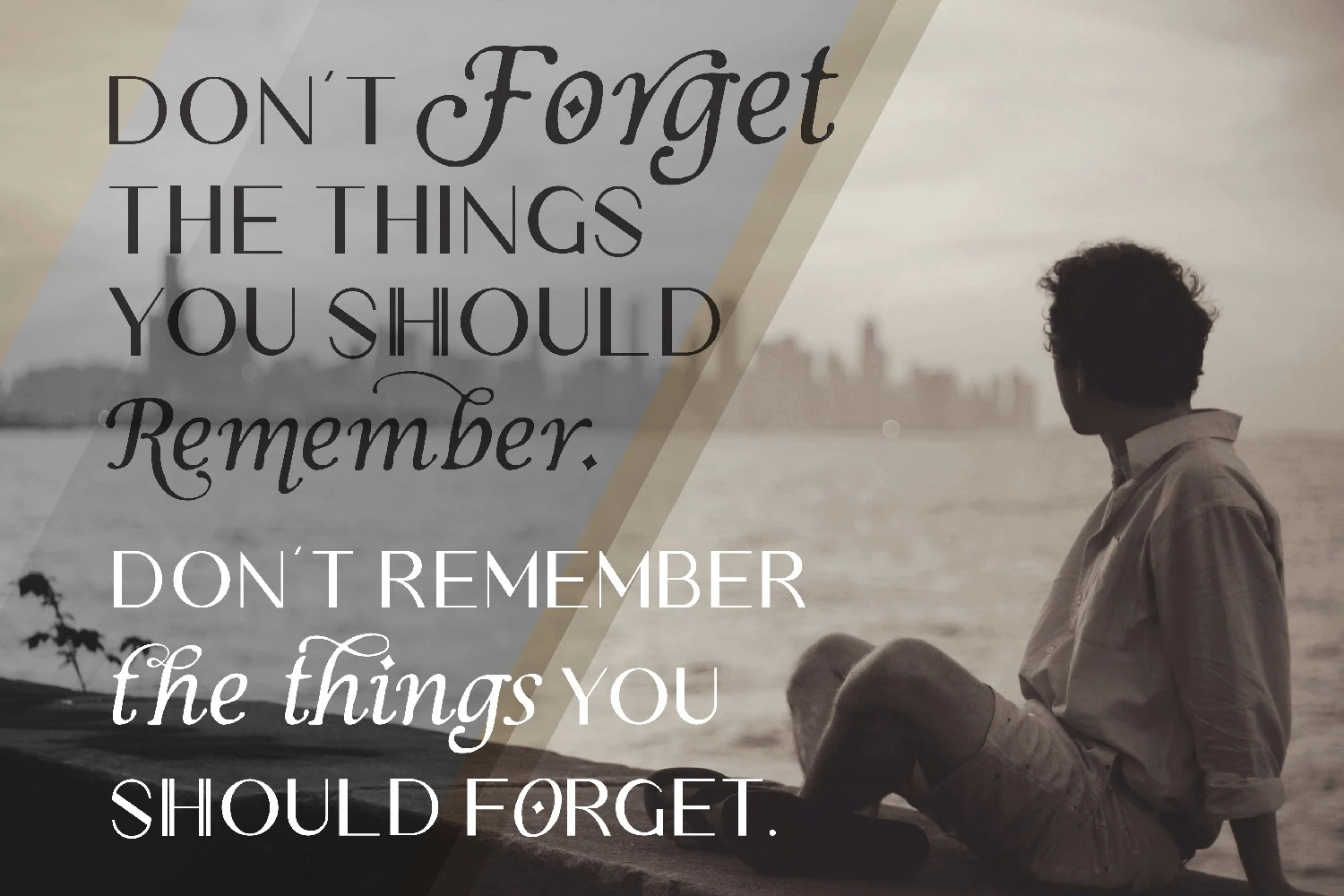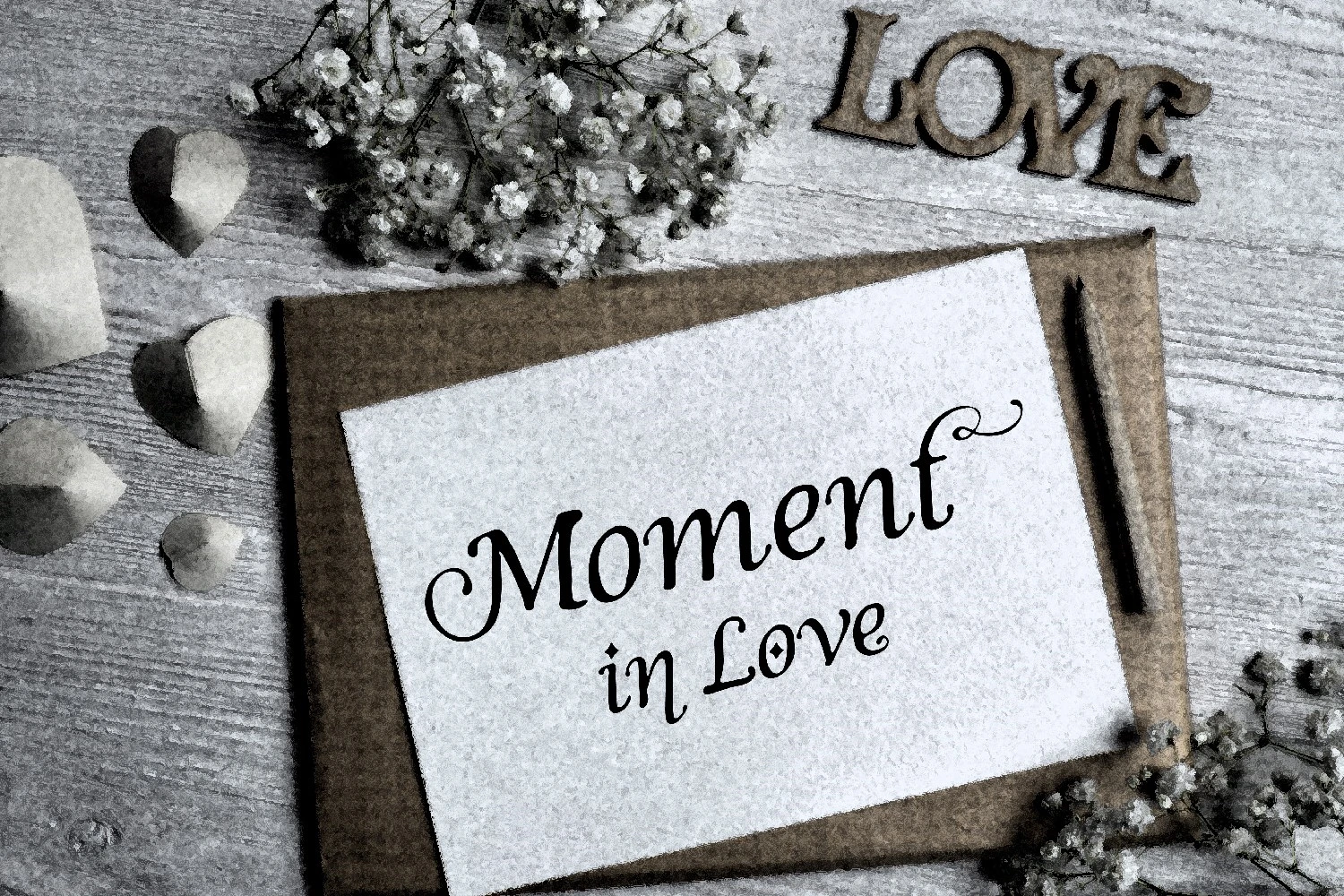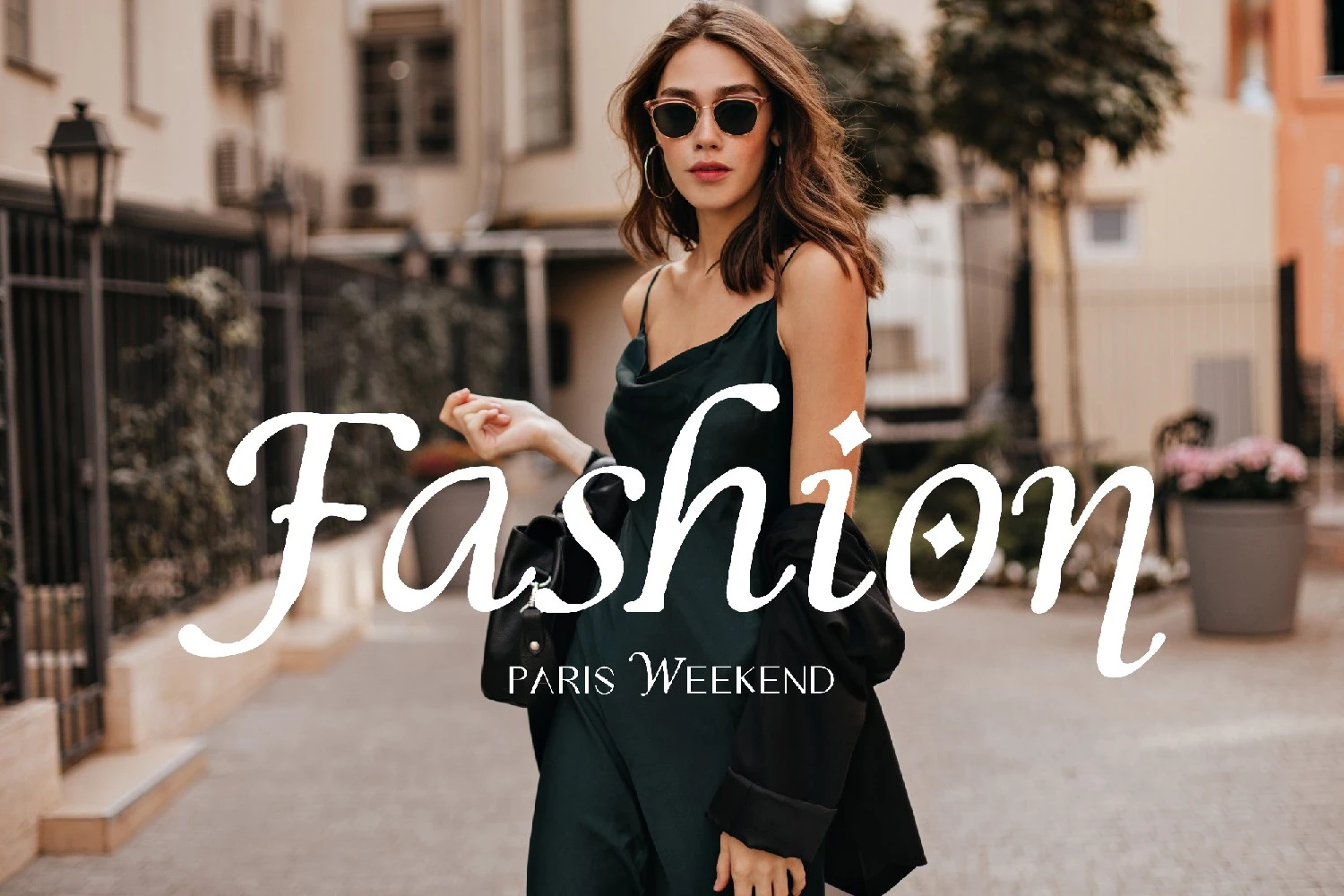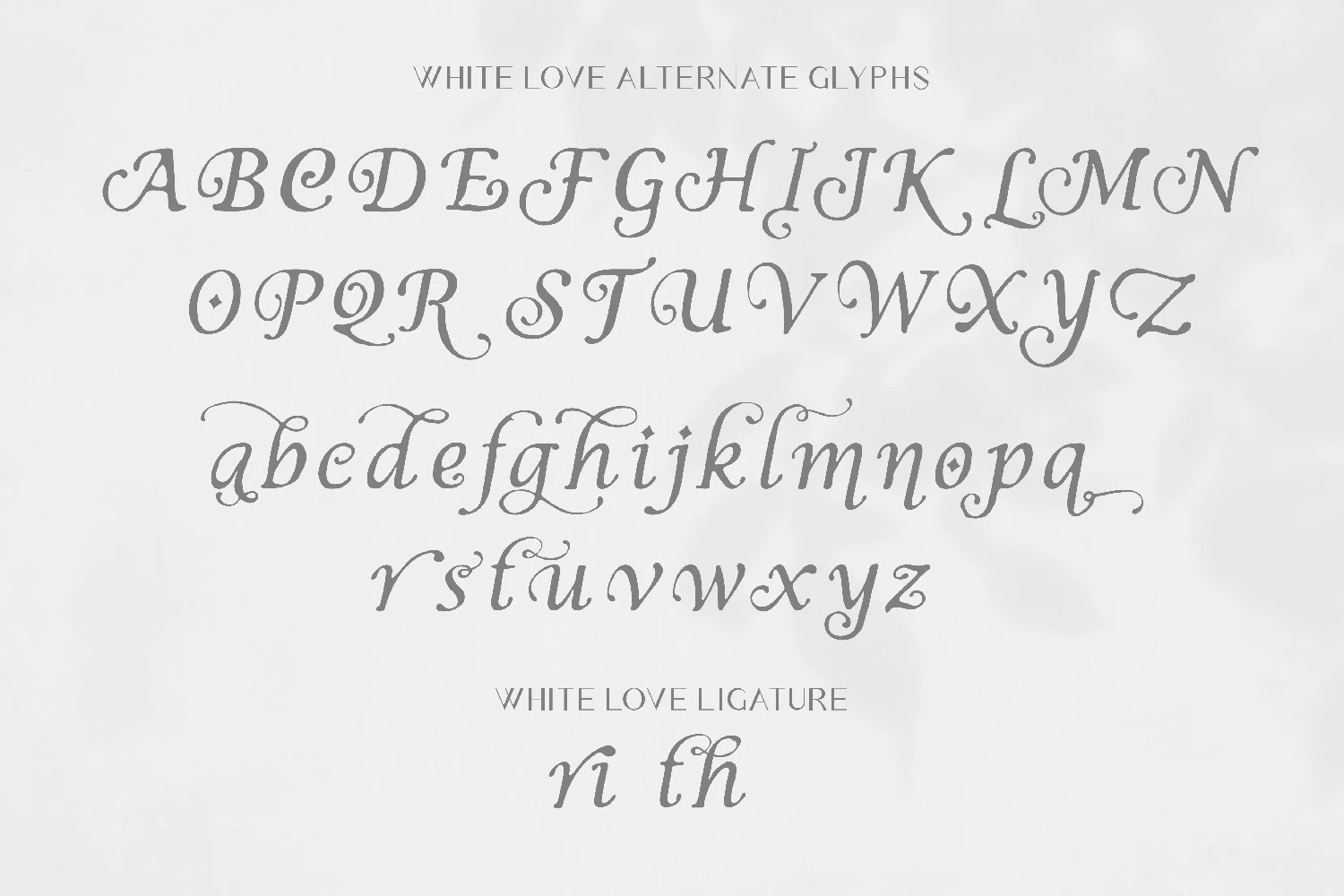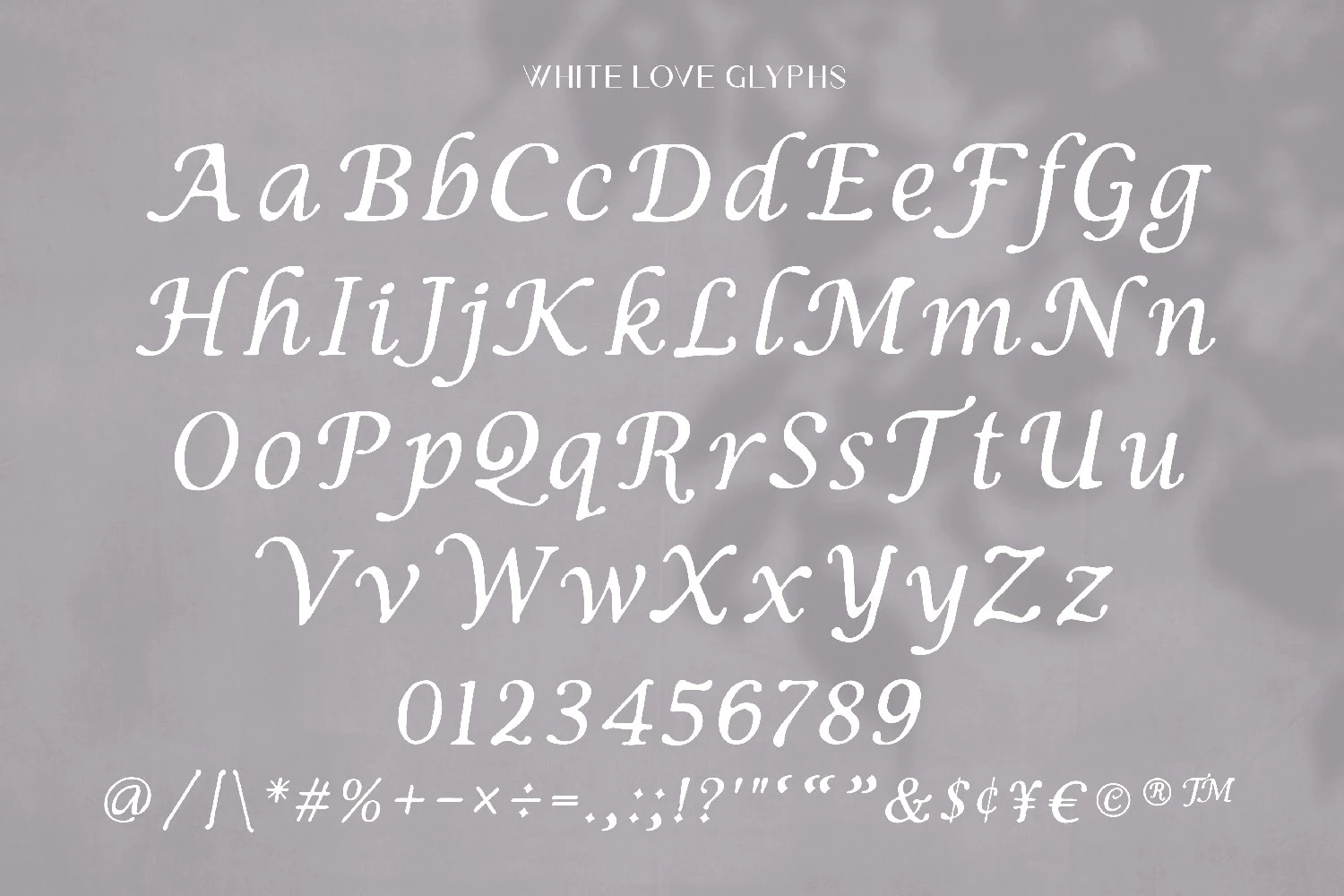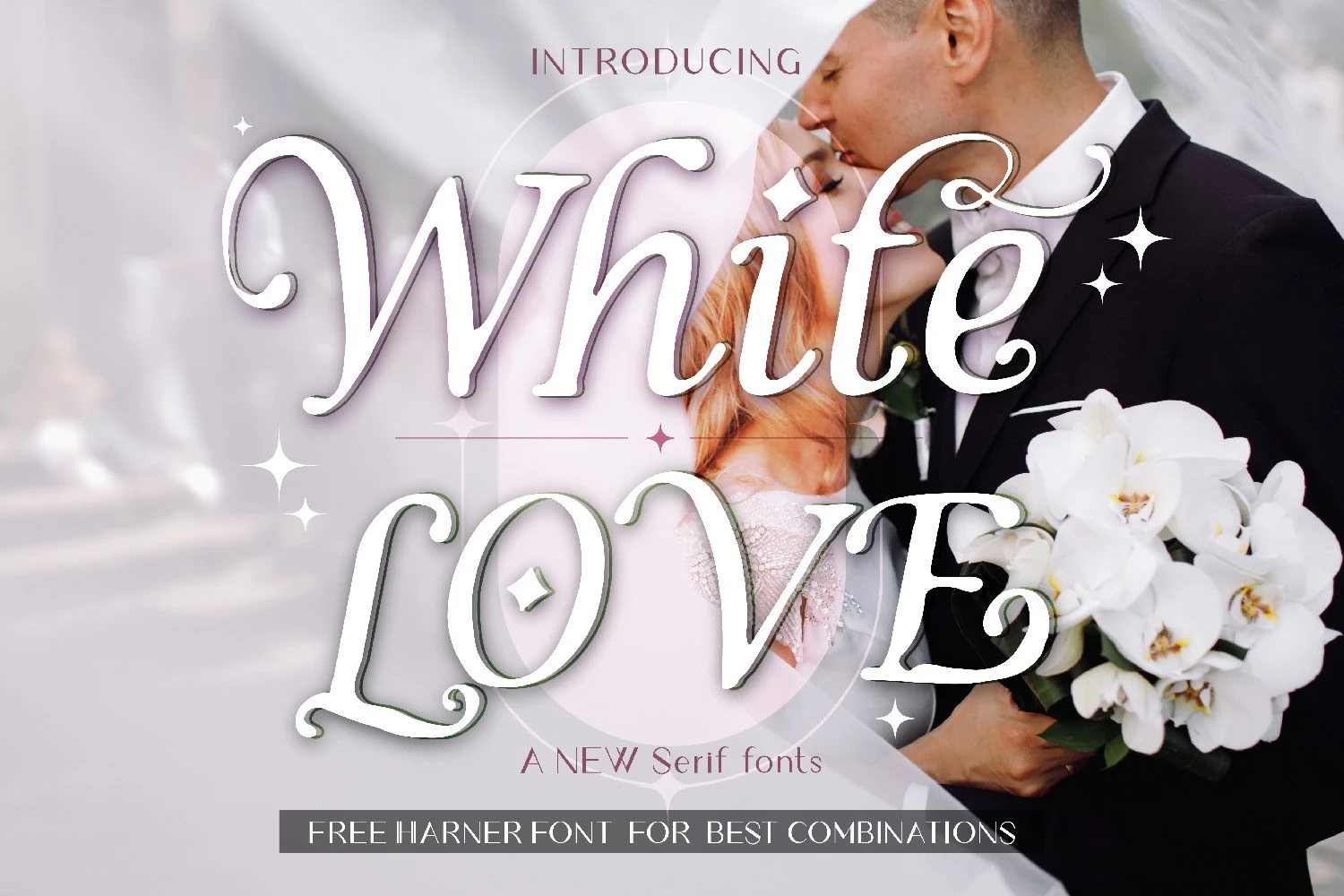
White Love a stylish and incredibly elegant display font. Add it confidently to your projects, and you will love the results.
****** The font has alternative letters fonts and ligature font that can access with some software designs, such as Adobe Photoshop, illustrator, InDesign, Affinity designer, etc. Please check your software can access alternative font before purchase.